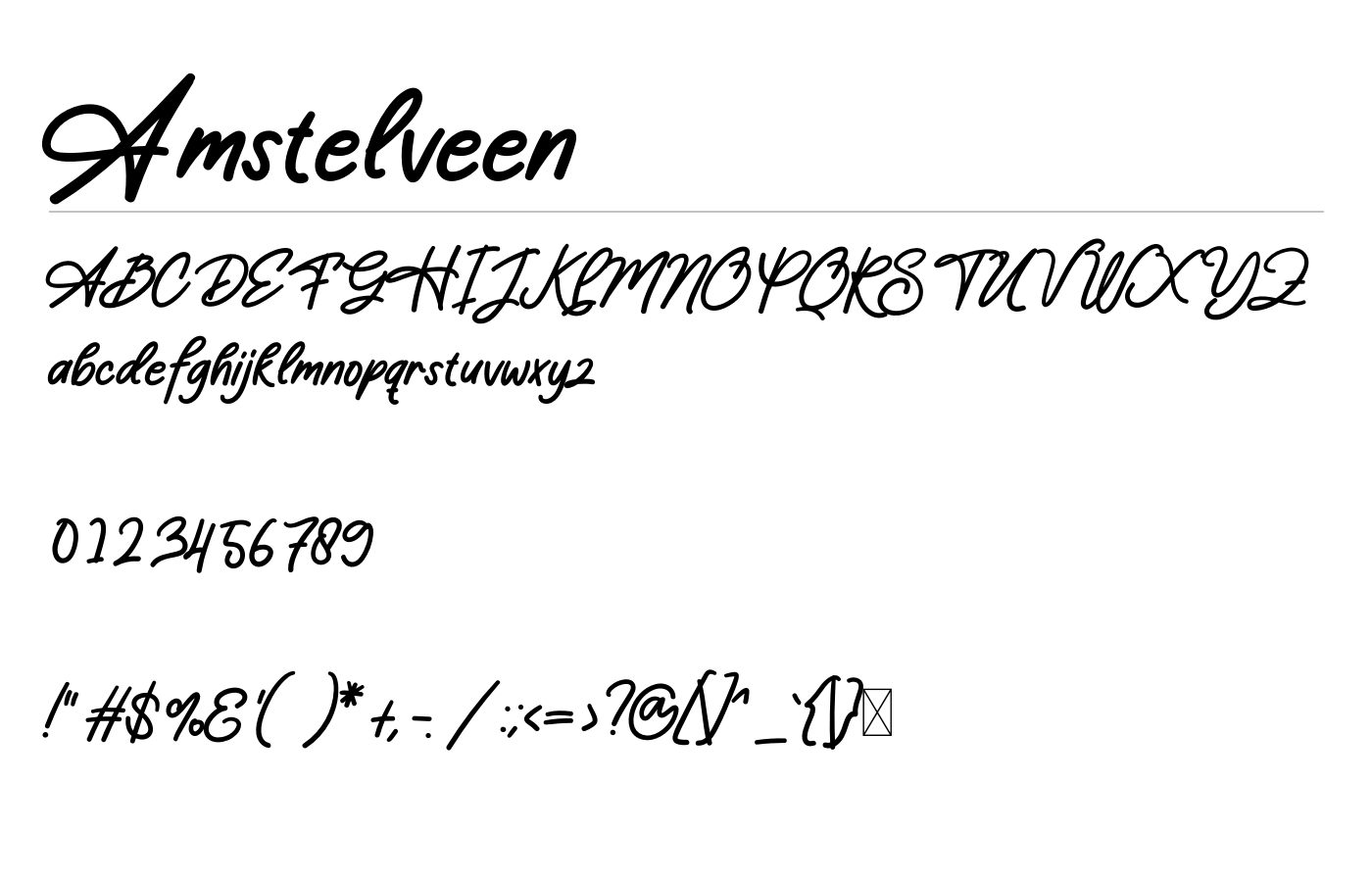
Amstelveen is a lively script font with a casual, handwritten feel characterized by smooth, flowing strokes and a moderate weight that strikes a balance between elegance and readability. Its friendly, dynamic letterforms with distinctive curls and loops give it a personal, approachable personality, making it ideal for creative projects, informal branding, fashion, and invitations. This font works beautifully in headlines and display uses where a warm, artistic touch is desired.
Amstelveen Font
About Amstelveen Font